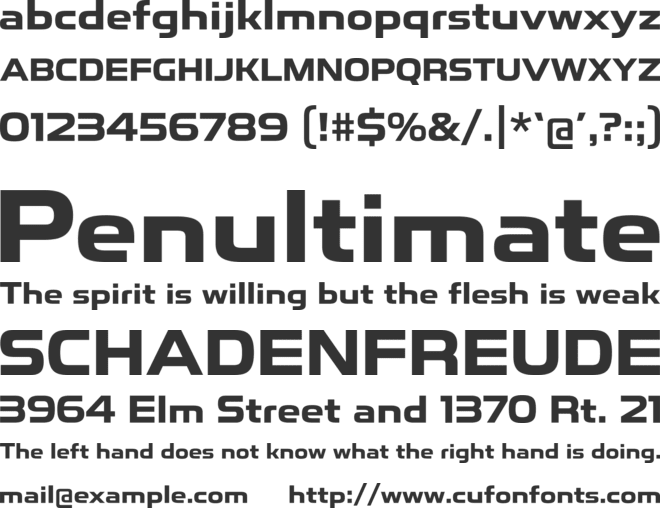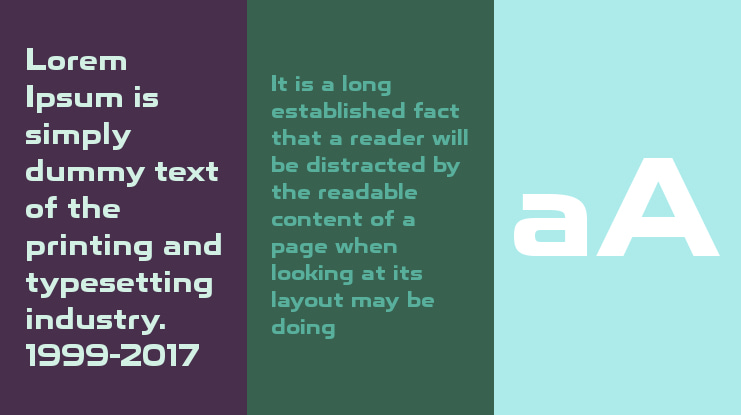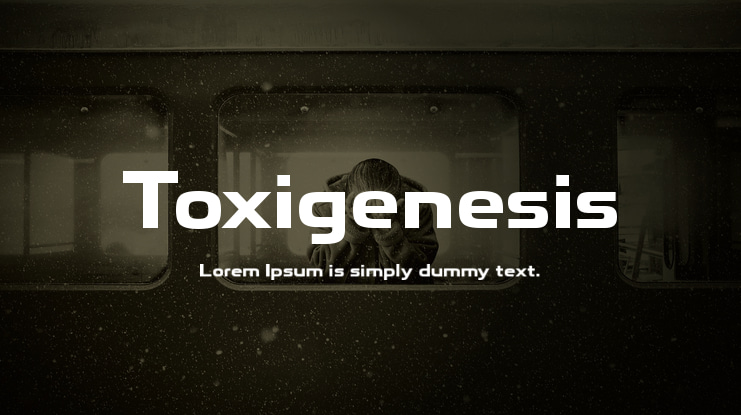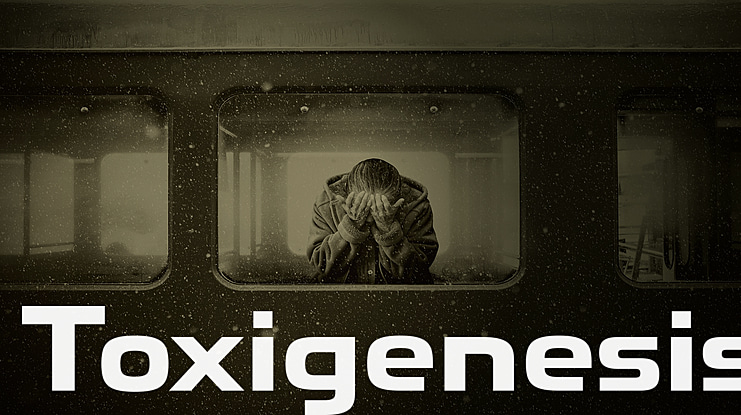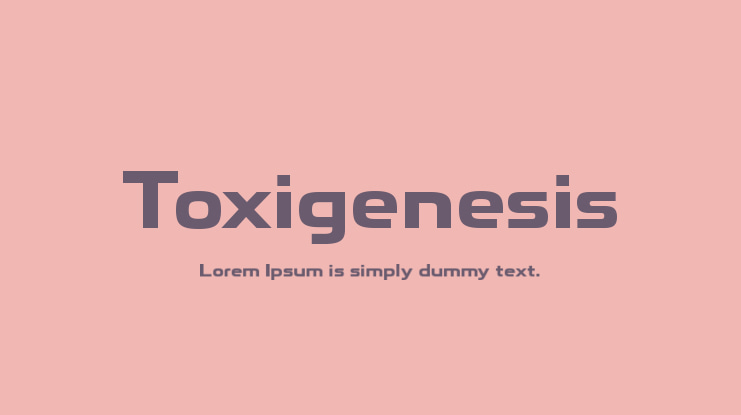
Toxigenesis Font
Ray Larabie
Toxigenesis is an ultramodern, superelliptical sans-serif typeface with plastic forms influenced by consumer electronics and vehicle design. Mathematical symbols, fractions, numeric ordinals and monetary symbols are in good supply. Cyrillic, Greek and almost all Latin-based languages are supported. Toxigenesis is available is five weights and italics.